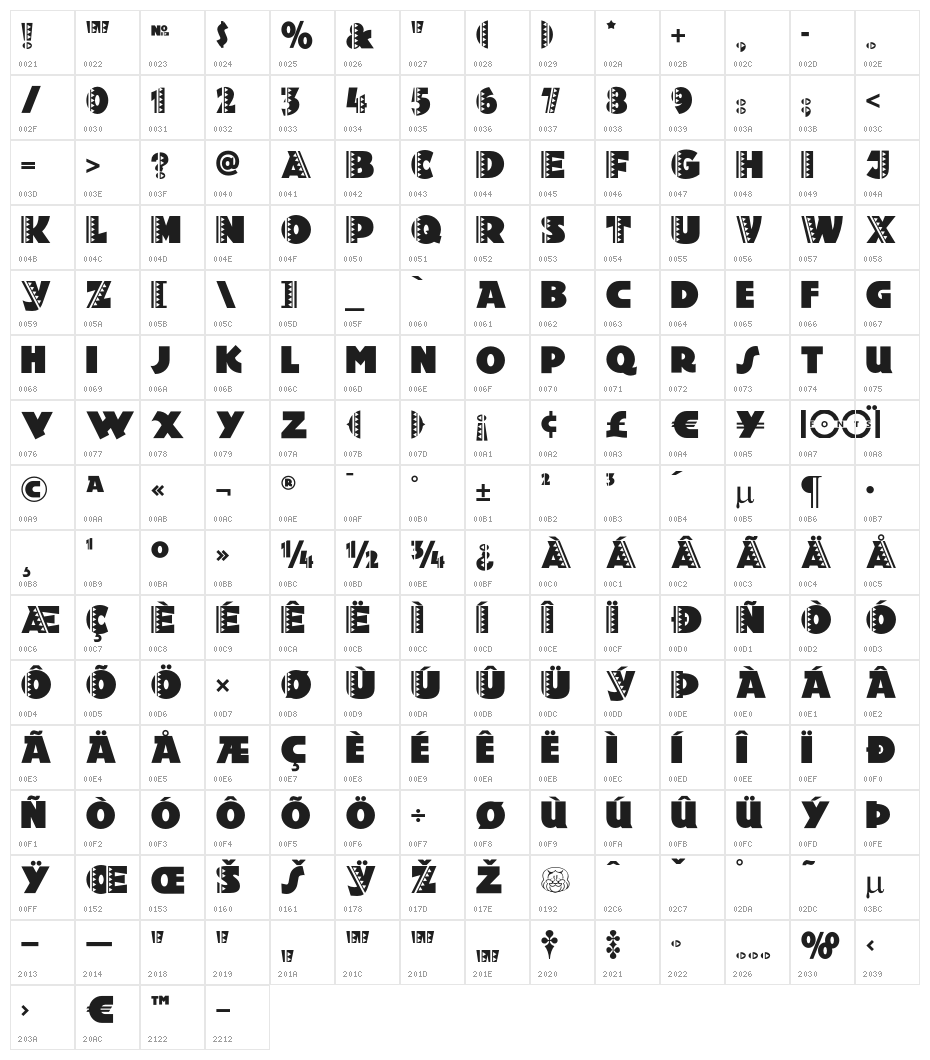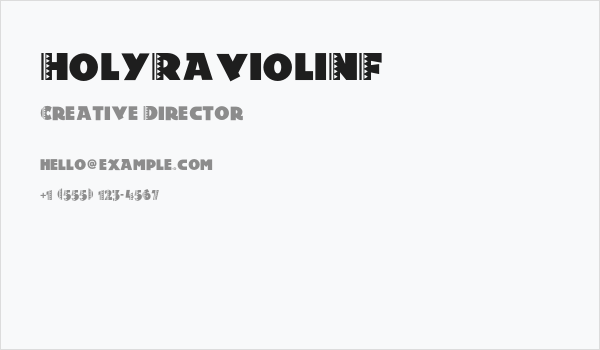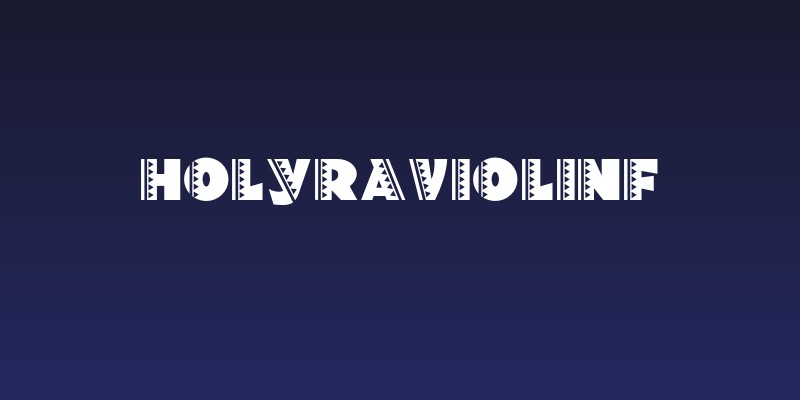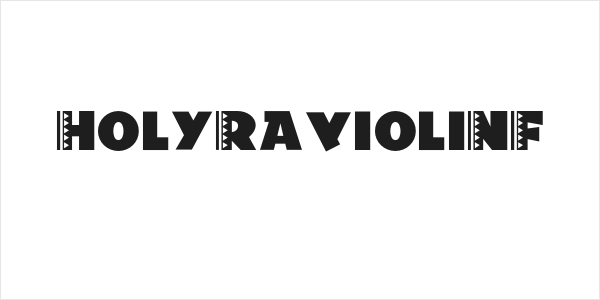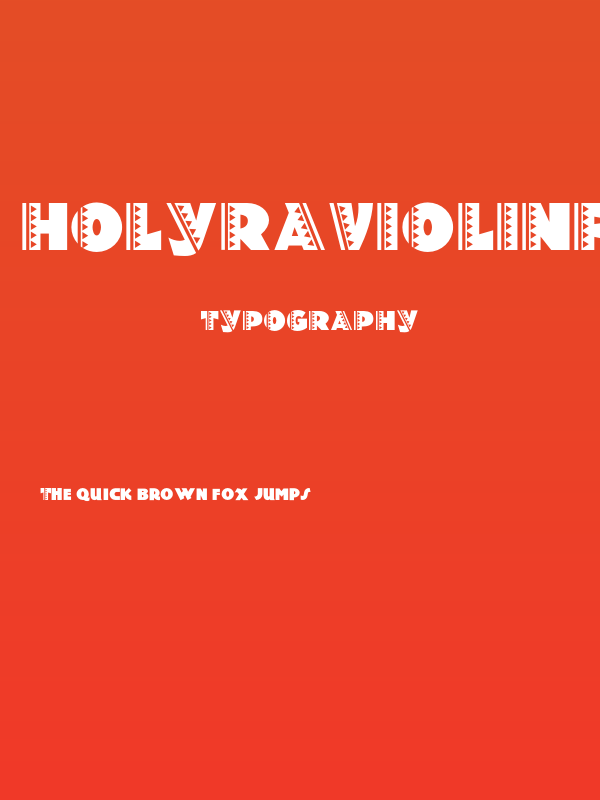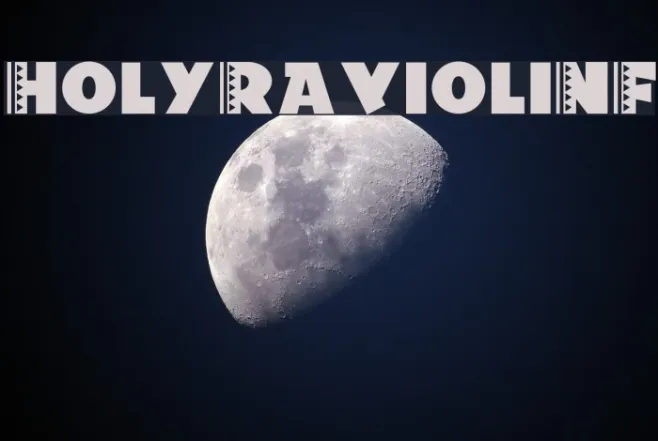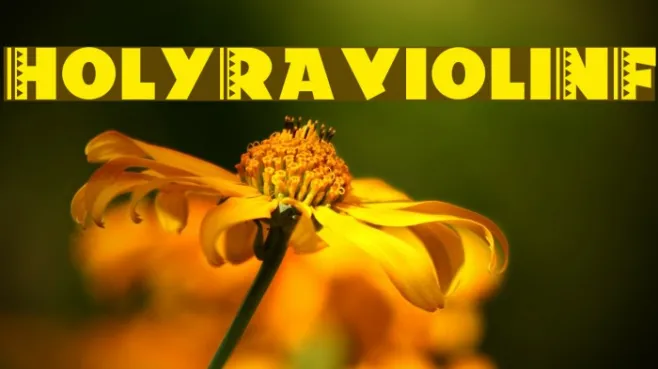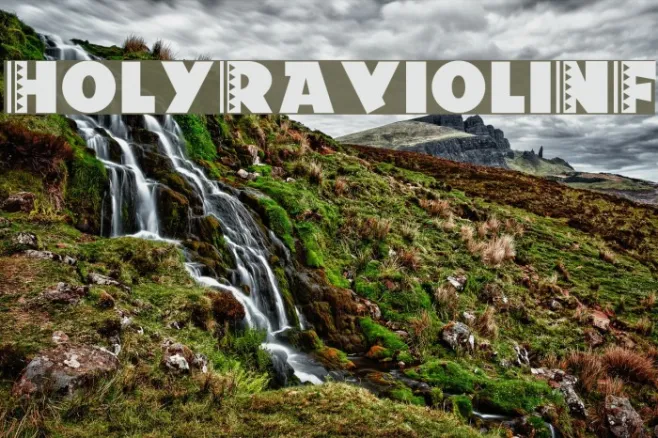
HolyRavioliNF Font
HolyRavioliNF Description
This font features a bold and playful design with a unique decorative pattern inside each character. The uppercase letters are particularly striking, with geometric shapes and lines that create a tribal or ethnic feel. The lowercase letters maintain the boldness but are more straightforward, offering a nice contrast. Numbers and special characters continue the theme with similar decorative elements, making the font cohesive and visually interesting. The overall style is eye-catching and perfect for projects that require a strong visual impact.